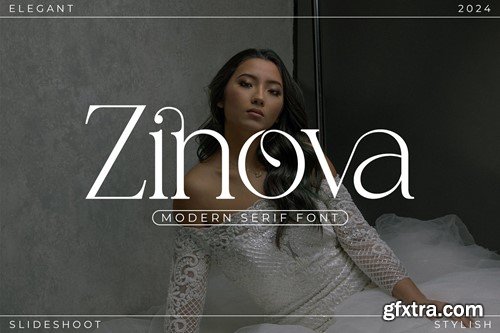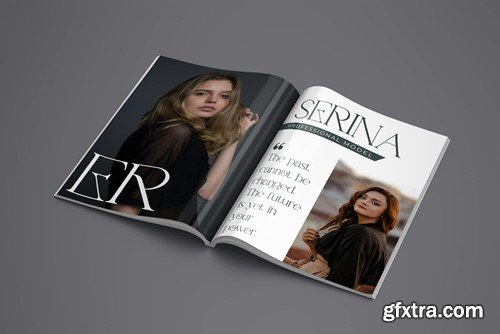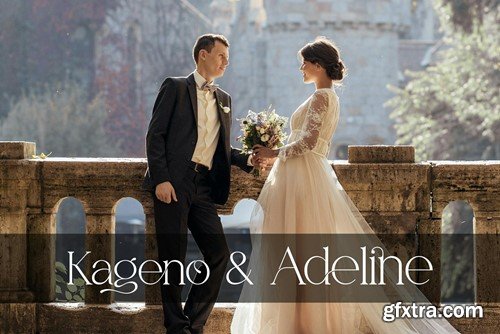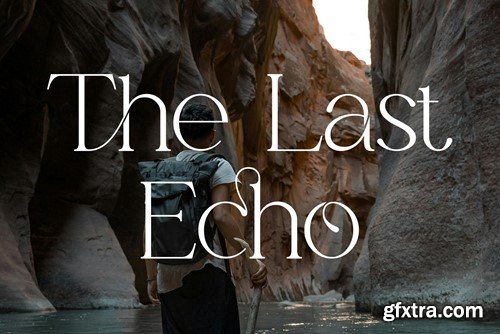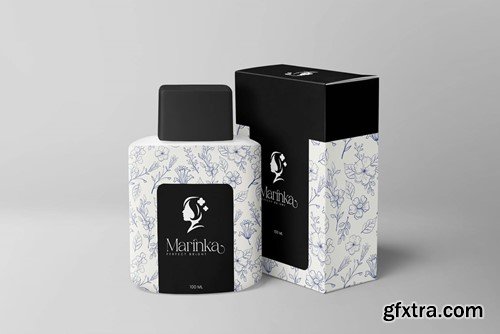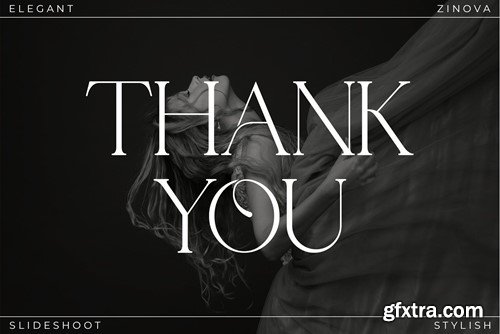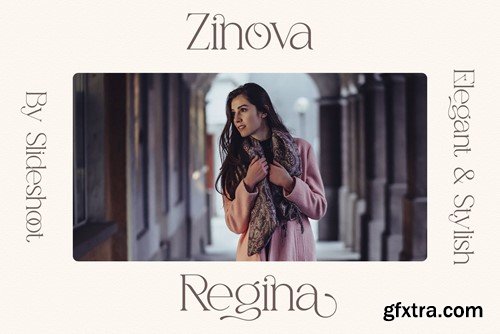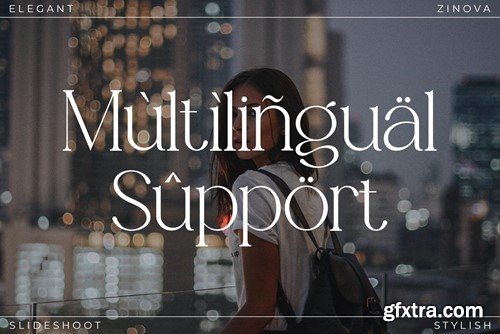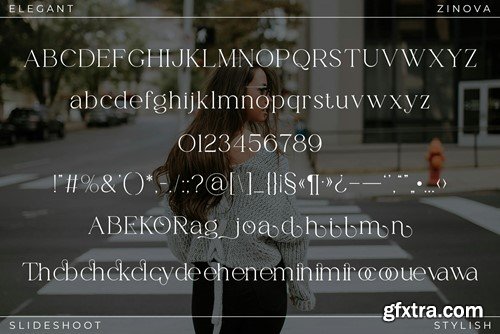
zinova现代 serif字体 HLMQZFS
Zinova Modern Serif Font HLMQZFS
Zinova Modern Serif Font
Zinova Serif is a balanced, smooth, elegant and stylish serif font. He has a beautiful character. It fits perfectly with invitation card designs, company logos, movie titles, movie names, business cards, book titles, brand names and various other designs. Zinova Serif is a subtle serif font that exudes sophistication and elegance. Its stylish alternations and ligatures make this font the perfect partner for any project.
FEATURE :
• Ligature
• Uppercase and lowercase
• Numbering and Punctuation